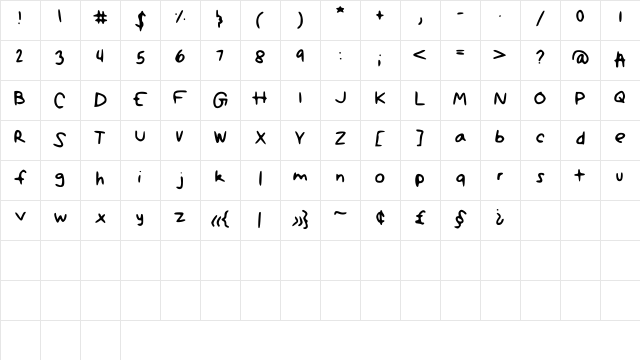
Shelby Medium
Shelby Family
Complete Shelby Medium glyph index. Displaying only characters natively supported by Shelby Medium font.
Design Context for Shelby
Shelby is a composed and adaptable typeface that performs quietly and consistently across a wide range of design contexts.